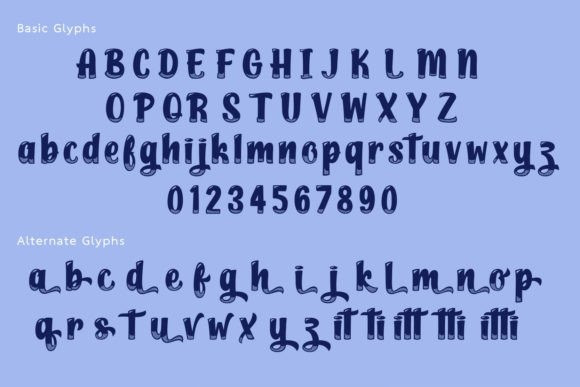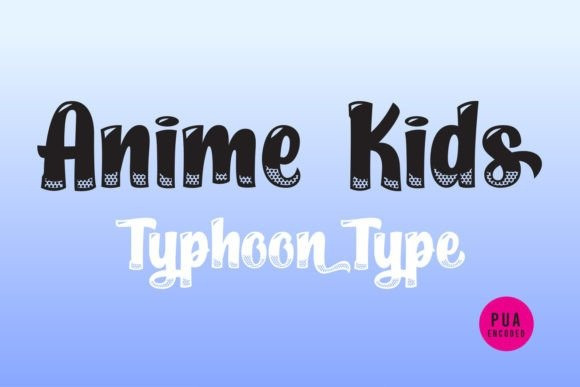
Anime Kids Font
Anime Kids Font, is a vibrant English font that embodies the energetic and playful nature of anime. Designed in a pop art style, it showcases a unique and distinctive look that sets it apart from others. The font features dynamic and eye-catching color gradients within the letters, giving them a three-dimensional and modern appearance.
Anime Kids is the perfect choice for various types of advertising media as it effortlessly captures attention and adds a touch of youthful charm. Whether it’s for posters, banners, or digital campaigns, this font brings a sense of fun and excitement, making it highly suitable for capturing the essence of anime-inspired designs.This font is PUA encoded, which means you can access all of the glyphs and swashes with ease!